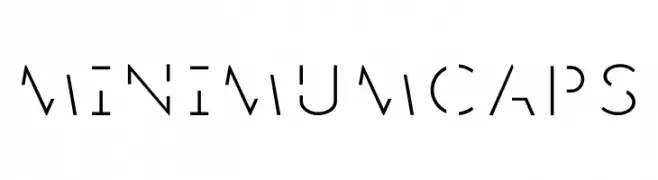
A minimalist, geometric font with straight lines and sharp angles.
A sleek, geometric font with thin lines and a minimalist aesthetic.
A modern, geometric sans-serif font with thin, uniform strokes.